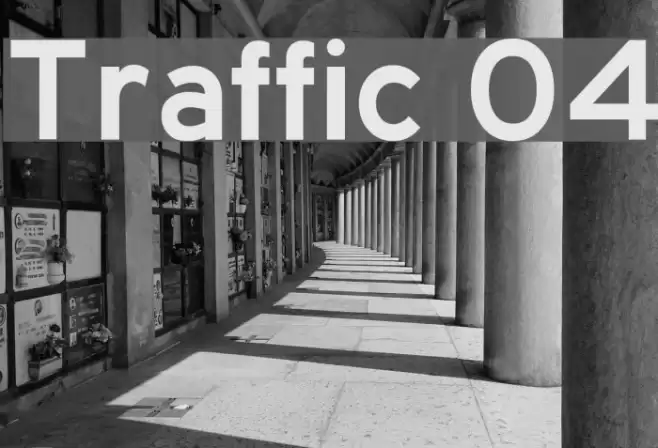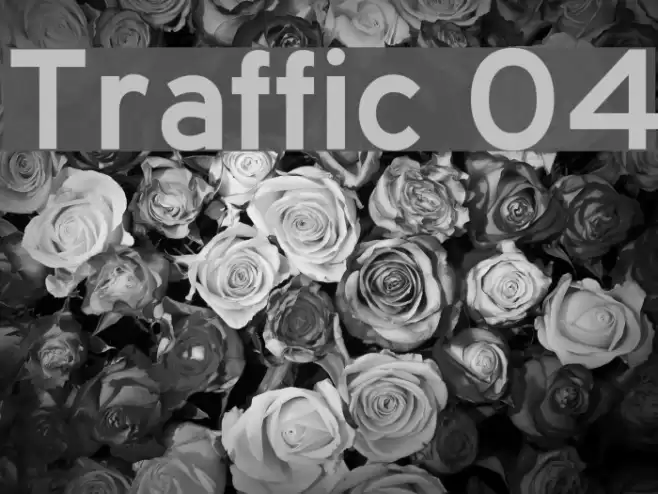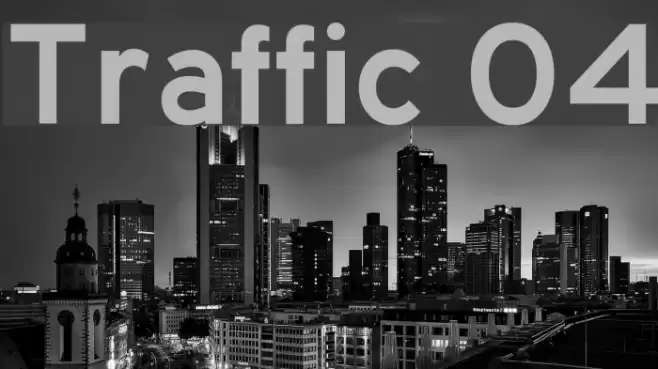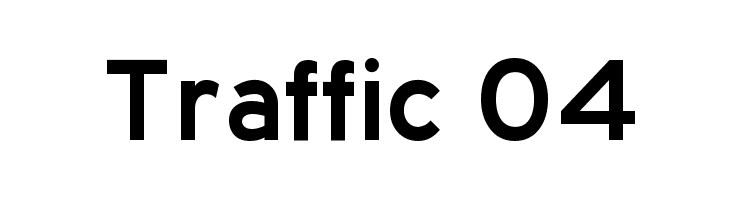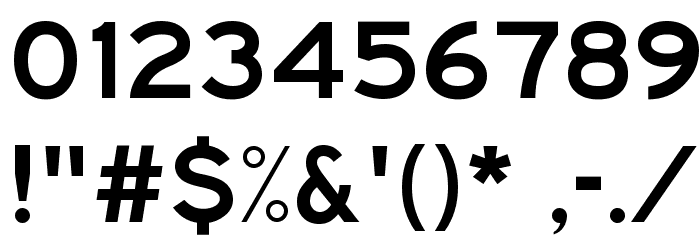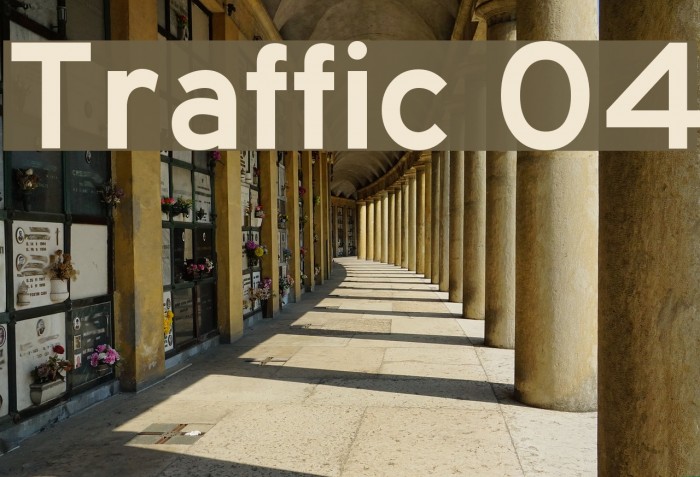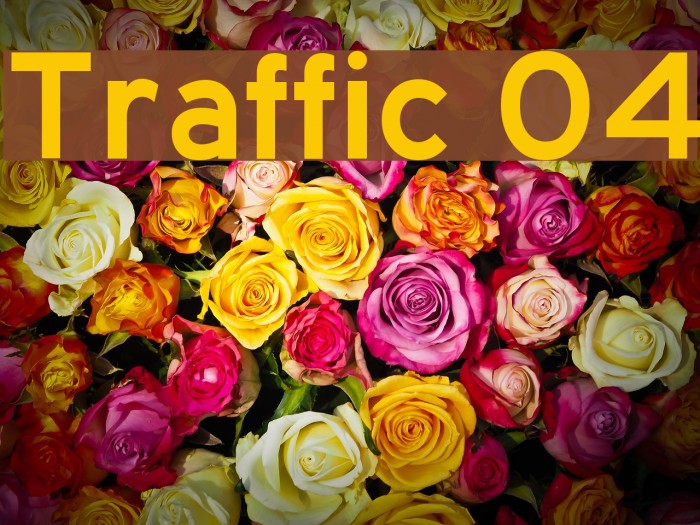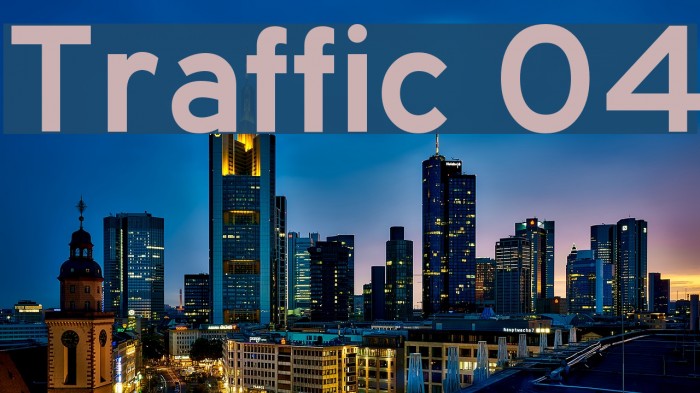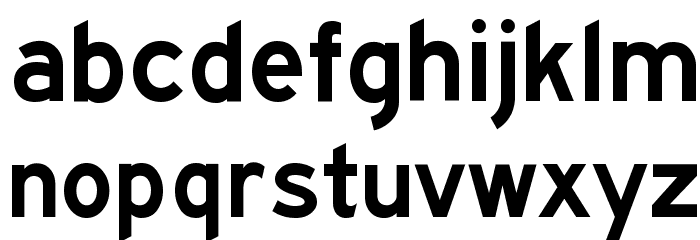
Traffic 04 Font
Traffic 04 Description
This typeface features a bold and modern sans-serif design, characterized by clean lines and a strong presence. The uppercase and lowercase letters are well-proportioned, offering a balanced look that is both professional and approachable. The numerals are clear and easily distinguishable, making them suitable for a variety of applications. The special characters are crafted with precision, maintaining the overall aesthetic of the font. Its versatility makes it ideal for both digital and print media, ensuring readability and impact.
A bold, modern sans-serif typeface with clean lines and strong presence from Uncategorized fonts.
- Proposed Projects: Ideal for branding, signage, headlines, and digital interfaces.
- Use Case: Headlines, Logos, Signage